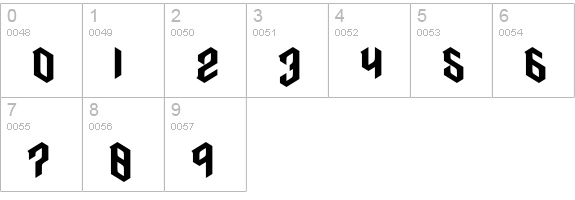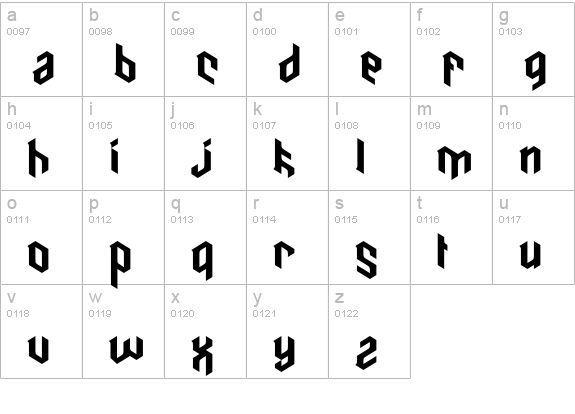
Cain Font is a remarkable typeface that captures attention with its unique and stylish design. This font is perfect for those who strive to make a bold statement in their creative projects. With its sleek and modern look, Cain Font adds a touch of sophistication to any design. What makes Cain Font even more amazing is that it is available for free. Yes, you read that right – this incredible font can be downloaded at no cost from FontsMarket.com. Whether you're a professional designer or someone who simply enjoys experimenting with different fonts, Cain Font is an excellent choice. With its wide range of characters and versatile nature, Cain Font can be used in various projects. From logos and branding to posters and social media graphics, this font is sure to make a lasting impression. Its clean lines and attention to detail make it a true standout among other fonts. Not only is Cain Font visually appealing, but it also offers excellent legibility. Each letter is meticulously crafted to ensure readability, making it suitable for both print and digital media. Whether it's a small headline or a large block of text, this font will deliver a clear and professional appearance. Download Cain Font today from FontsMarket.com and explore the endless possibilities it brings to your design projects. With its free availability, you have the opportunity to enhance your creations without any financial constraints. So go ahead and unleash your creativity with Cain Font – the perfect blend of style, versatility, and affordability.